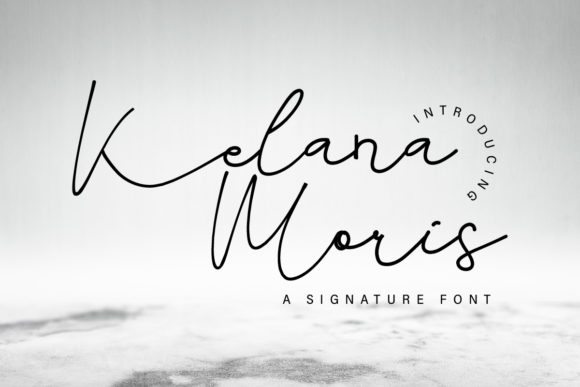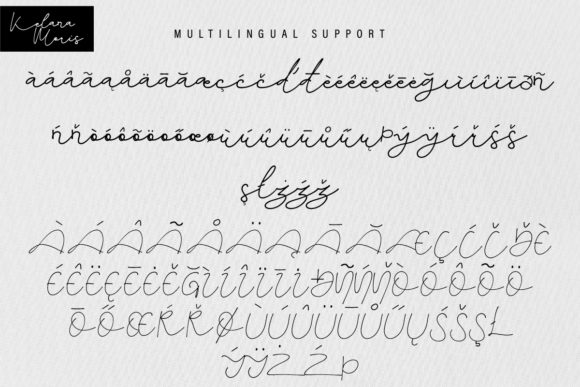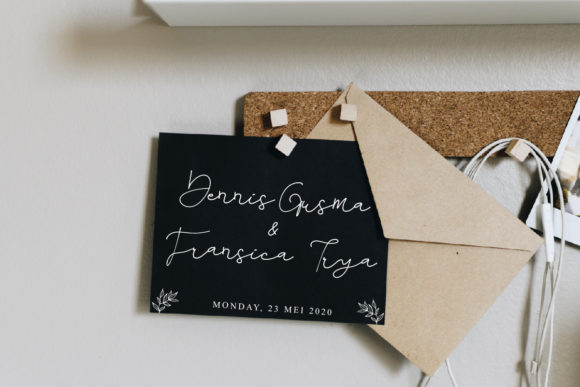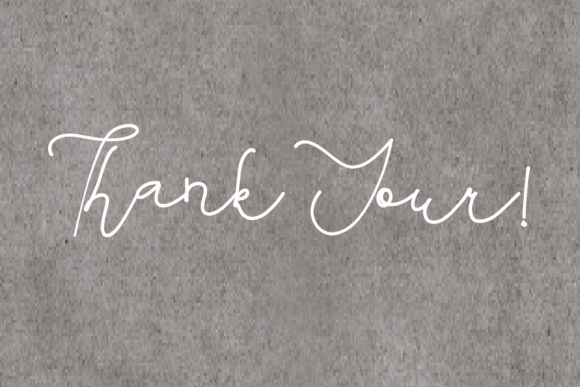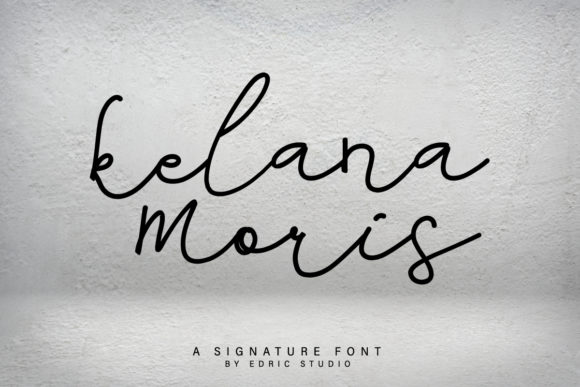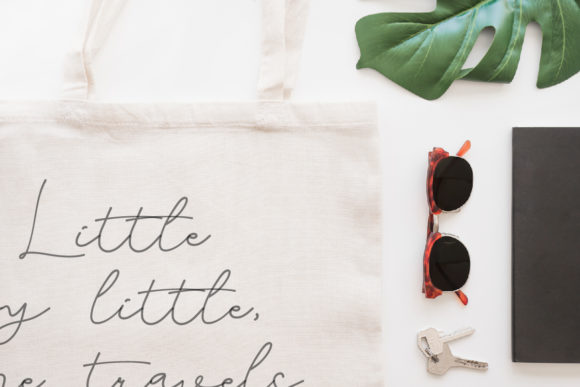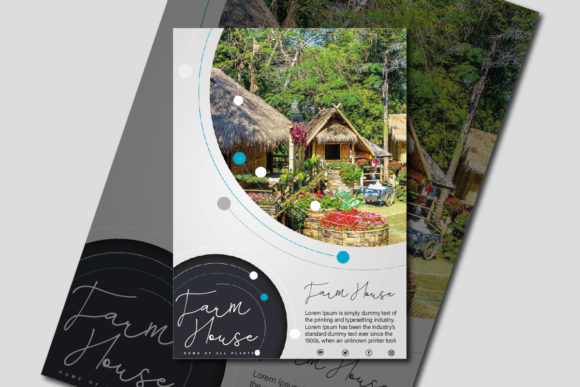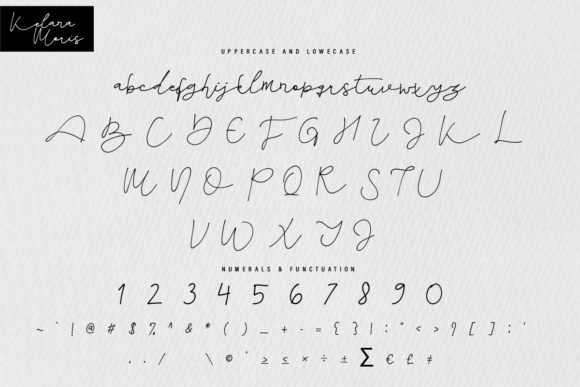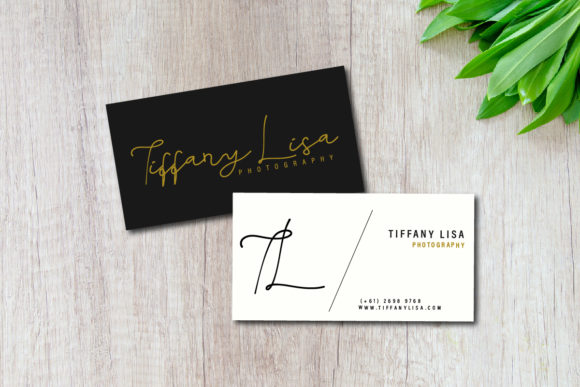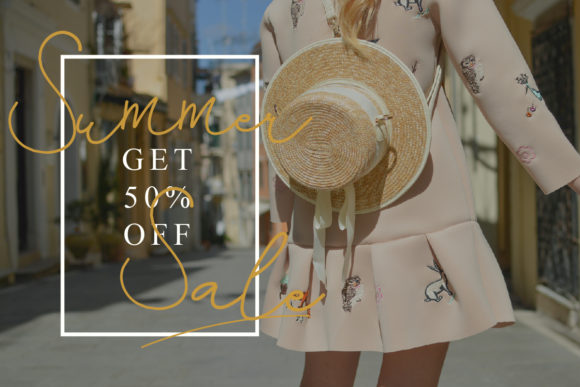
Kelana Moris Font
About Kelana Moris Font
Kelana Moris is a flowing and elegant handwritten font. It features an incredibly classic style, while still keeping a friendly feel. Kelana Moris is the perfect font for making original and outstanding designs.